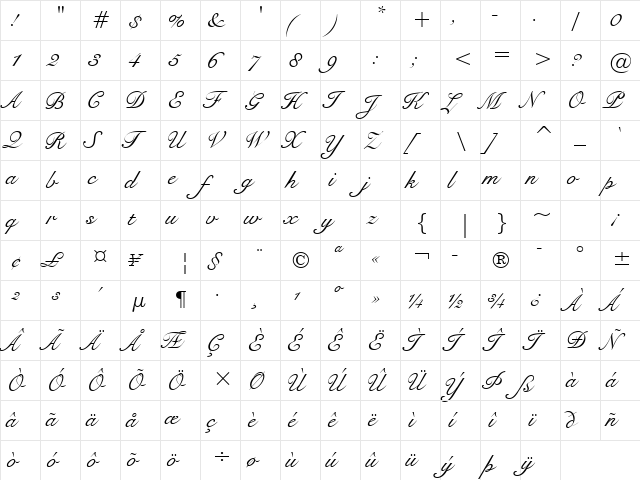
Snell BT Regular
Design Context for Snell BT Typeface
Snell BT takes a measured approach to typography — its balanced proportions and neutral character make it a reliable workhorse for both digital and print work.